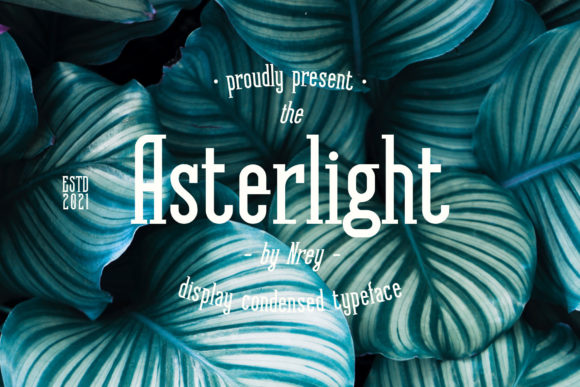
Asterlight Font: Elevate Your Designs with a Tall, Bold, and Cool Serif Font
Are you tired of using the same old fonts in your designs? Look no further than Asterlight Font, a tall, bold, and cool serif font that is sure to take your creations to the next level. With its unique and stylish aesthetic, Asterlight Font is a wonderful asset to any font library, and has the potential to enhance any project, regardless of the topic or theme.
What is Asterlight Font?
Asterlight Font is a serif font that stands out from the crowd with its tall and bold letterforms. Its cool and elegant design makes it perfect for a wide range of applications, from headings and titles to body text and more. Whether you’re a designer, craftsperson, or simply someone who loves to create, Asterlight Font is a versatile and reliable choice that is sure to impress.
Key Features of Asterlight Font
- Tall and Bold Letterforms: Asterlight Font features tall and bold letterforms that are sure to grab attention and make a statement.
- Cool and Elegant Design: The font’s cool and elegant design makes it perfect for a wide range of applications, from modern and edgy to classic and sophisticated.
- Serif Style: Asterlight Font is a serif font, which means it features small lines or flourishes at the ends of the letters, giving it a classic and timeless look.
- Versatile: Asterlight Font is a versatile font that can be used for a wide range of applications, from headings and titles to body text and more.
Why Use Asterlight Font?
So why should you use Asterlight Font in your designs? Here are just a few reasons:
- Adds Visual Interest: Asterlight Font’s unique and stylish aesthetic adds visual interest to any design, making it perfect for headings, titles, and other attention-grabbing elements.
- Enhances Readability: The font’s clear and legible design makes it easy to read, even at small sizes, making it perfect for body text and other applications where readability is key.
- Versatile: Asterlight Font is a versatile font that can be used for a wide range of applications, from print and digital media to signage and more.
- Unique: Asterlight Font’s unique and stylish aesthetic sets it apart from other fonts, making it perfect for designers and craftspersons who want to add a personal touch to their work.
How to Use Asterlight Font
Using Asterlight Font is easy! Here are a few tips to get you started:
- Headings and Titles: Use Asterlight Font for headings and titles to add visual interest and make a statement.
- Body Text: Use Asterlight Font for body text to add a touch of elegance and sophistication to your designs.
- Branding: Use Asterlight Font as part of your brand identity to add a unique and stylish touch to your logo, website, and other marketing materials.
- Pair with Other Fonts: Pair Asterlight Font with other fonts to create a unique and stylish aesthetic that sets your designs apart.
In conclusion, Asterlight Font is a tall, bold, and cool serif font that is sure to elevate your designs to the next level. With its unique and stylish aesthetic, versatile design, and wide range of applications, Asterlight Font is a wonderful asset to any font library. Whether you’re a designer, craftsperson, or simply someone who loves to create, Asterlight Font is a reliable and stylish choice that is sure to impress.
- What is Asterlight Font? Asterlight Font is a tall, bold, and cool serif font designed for use in a wide range of applications.